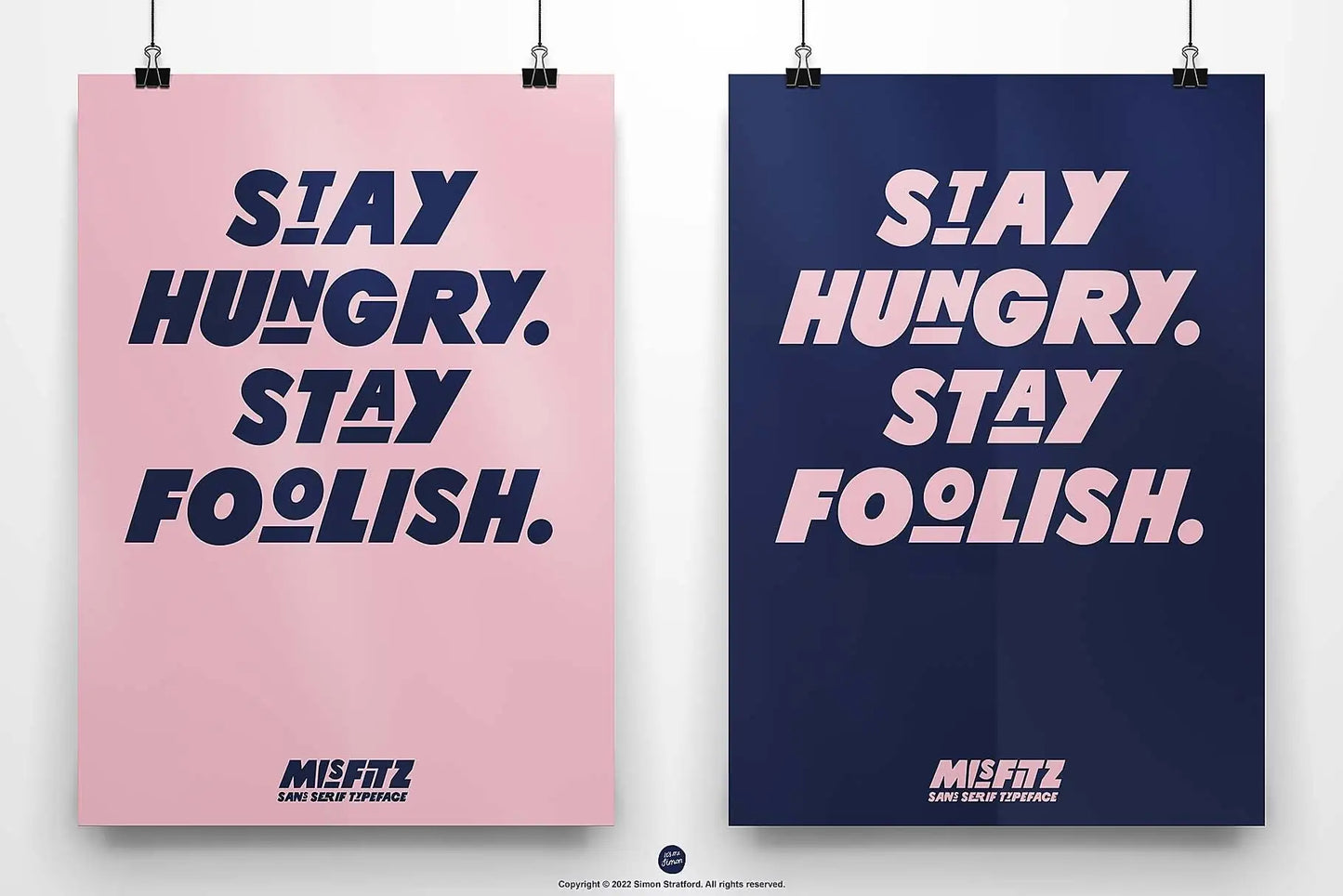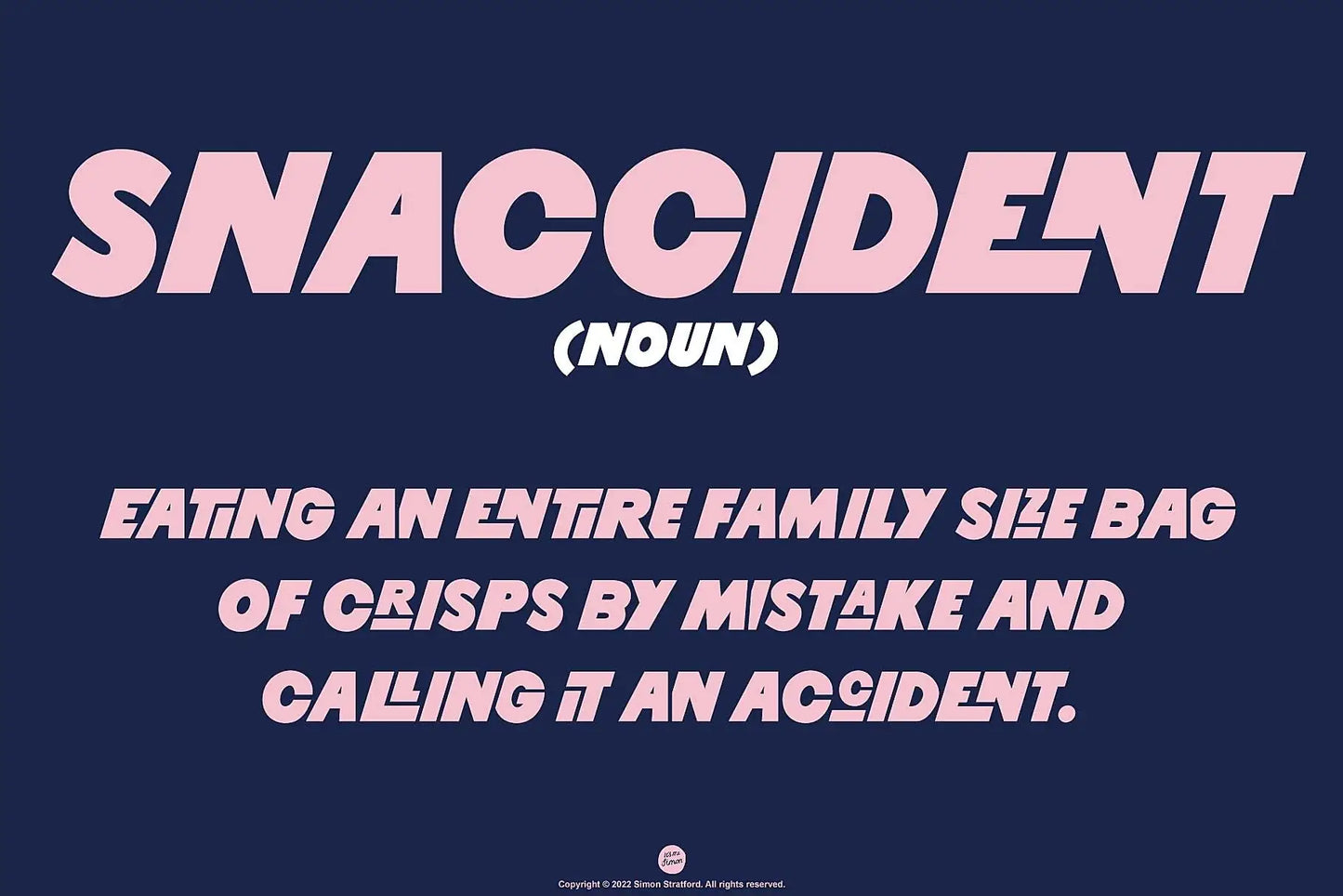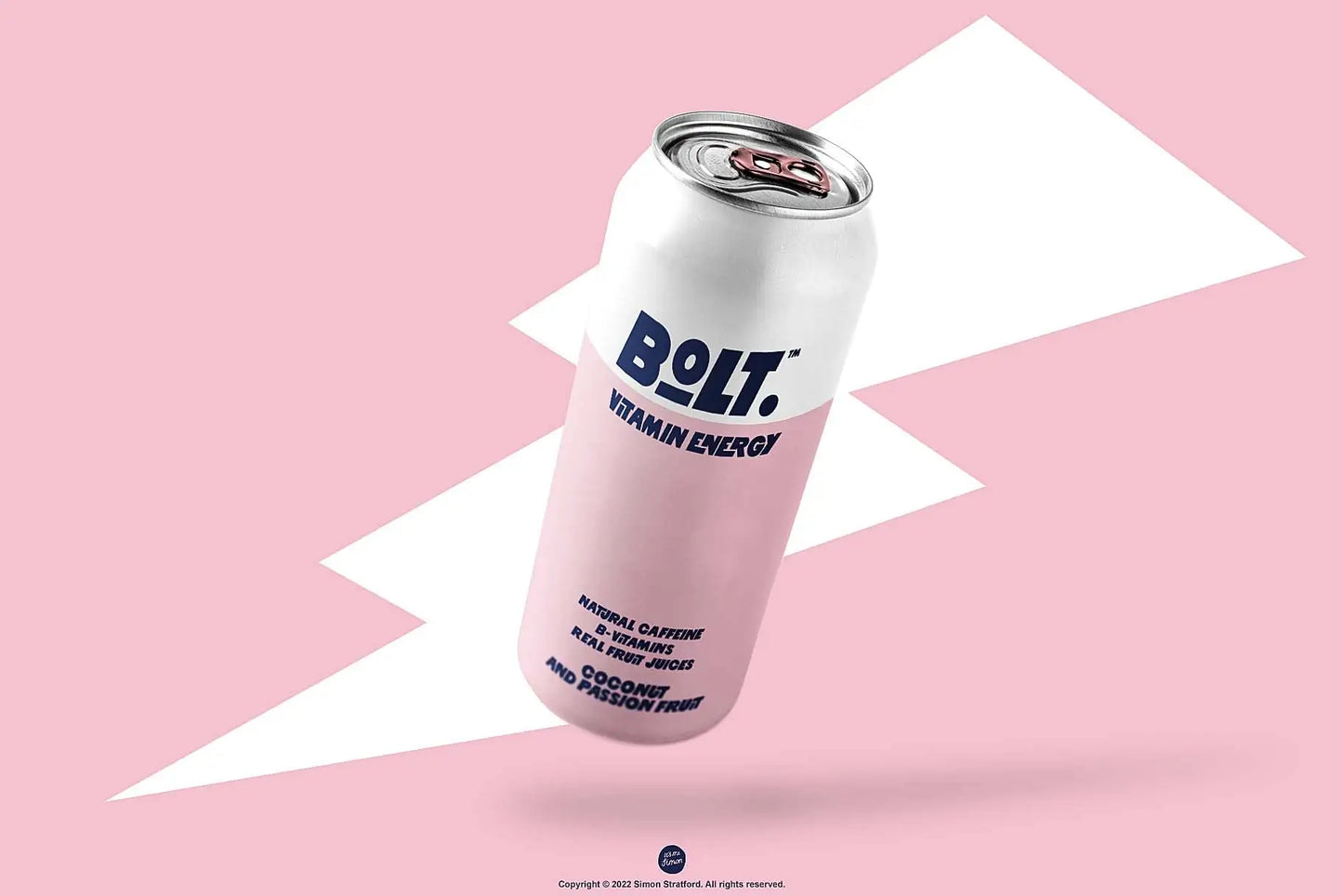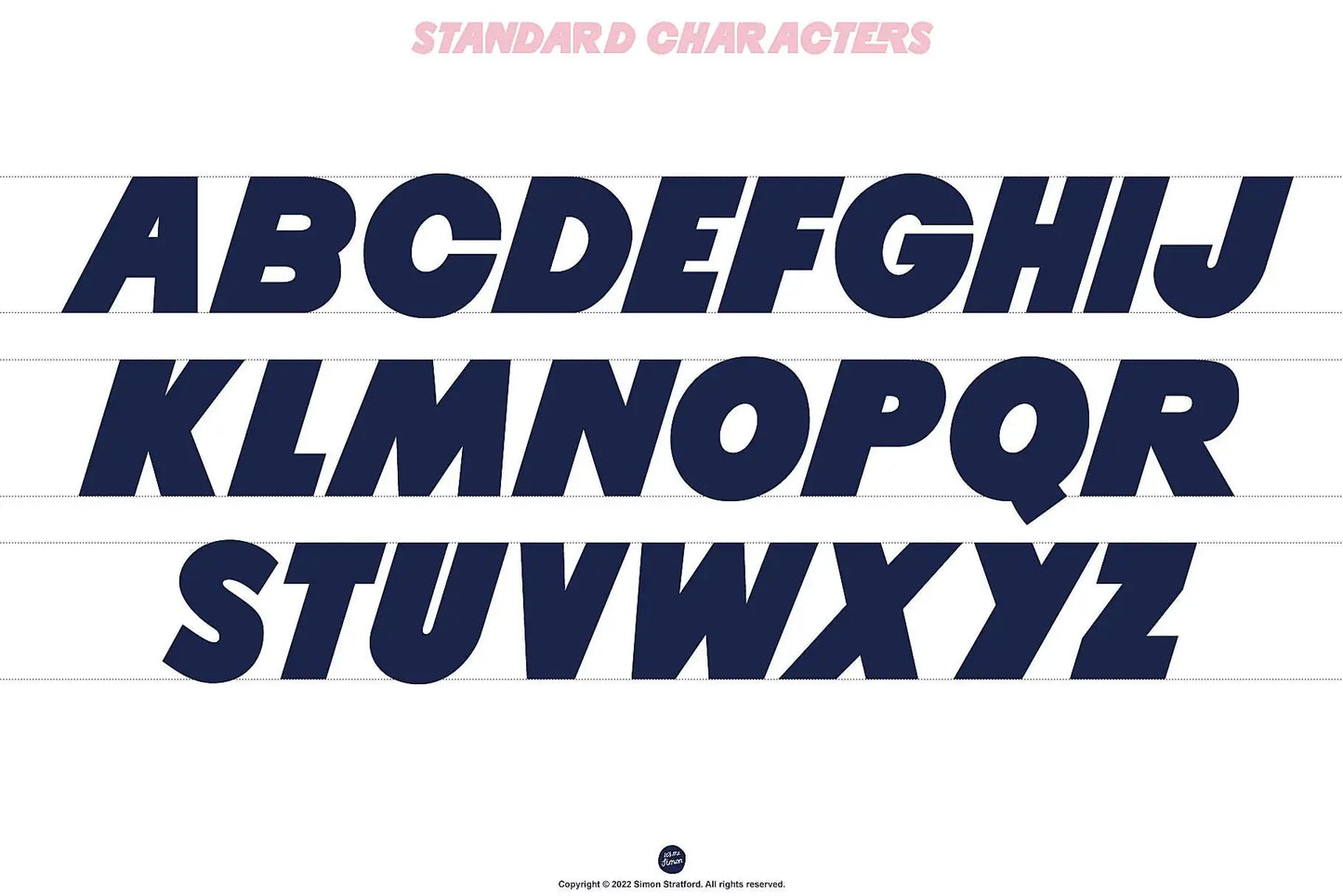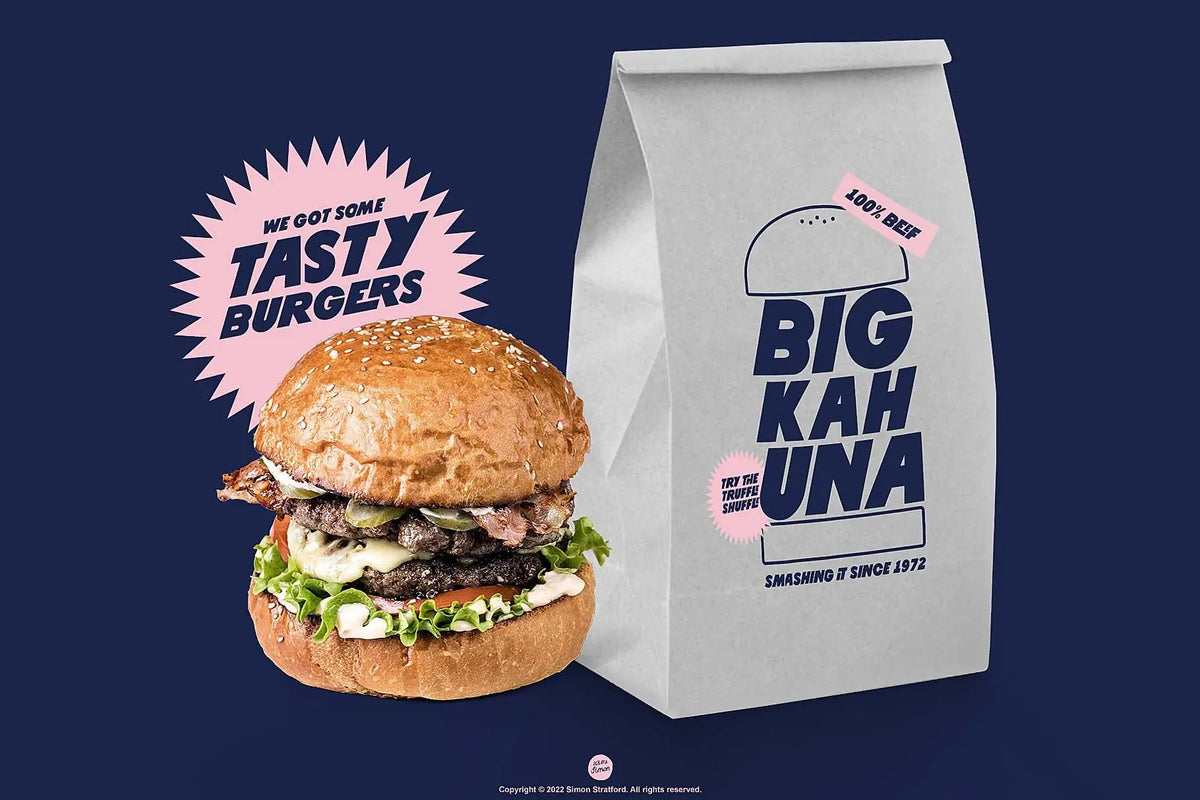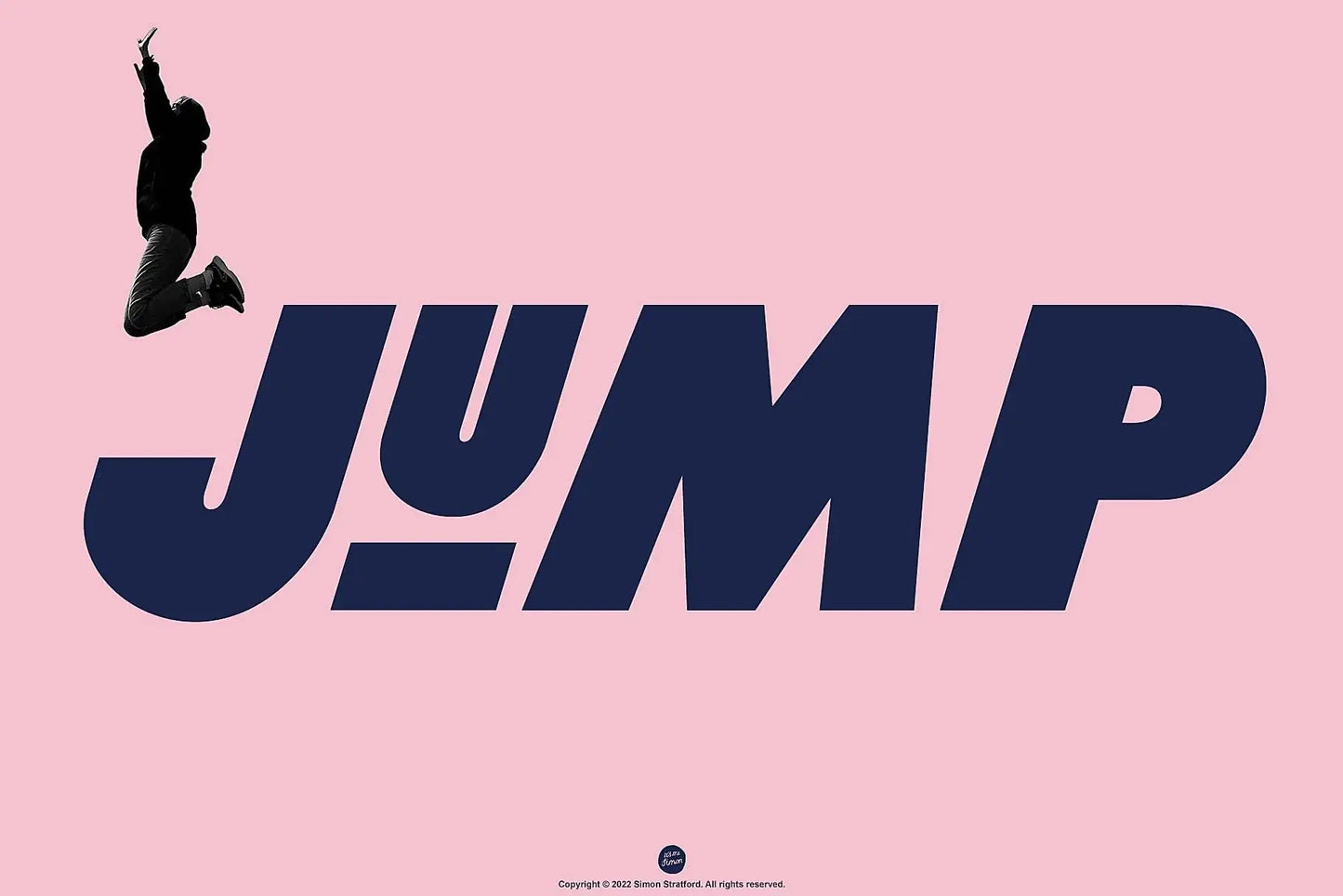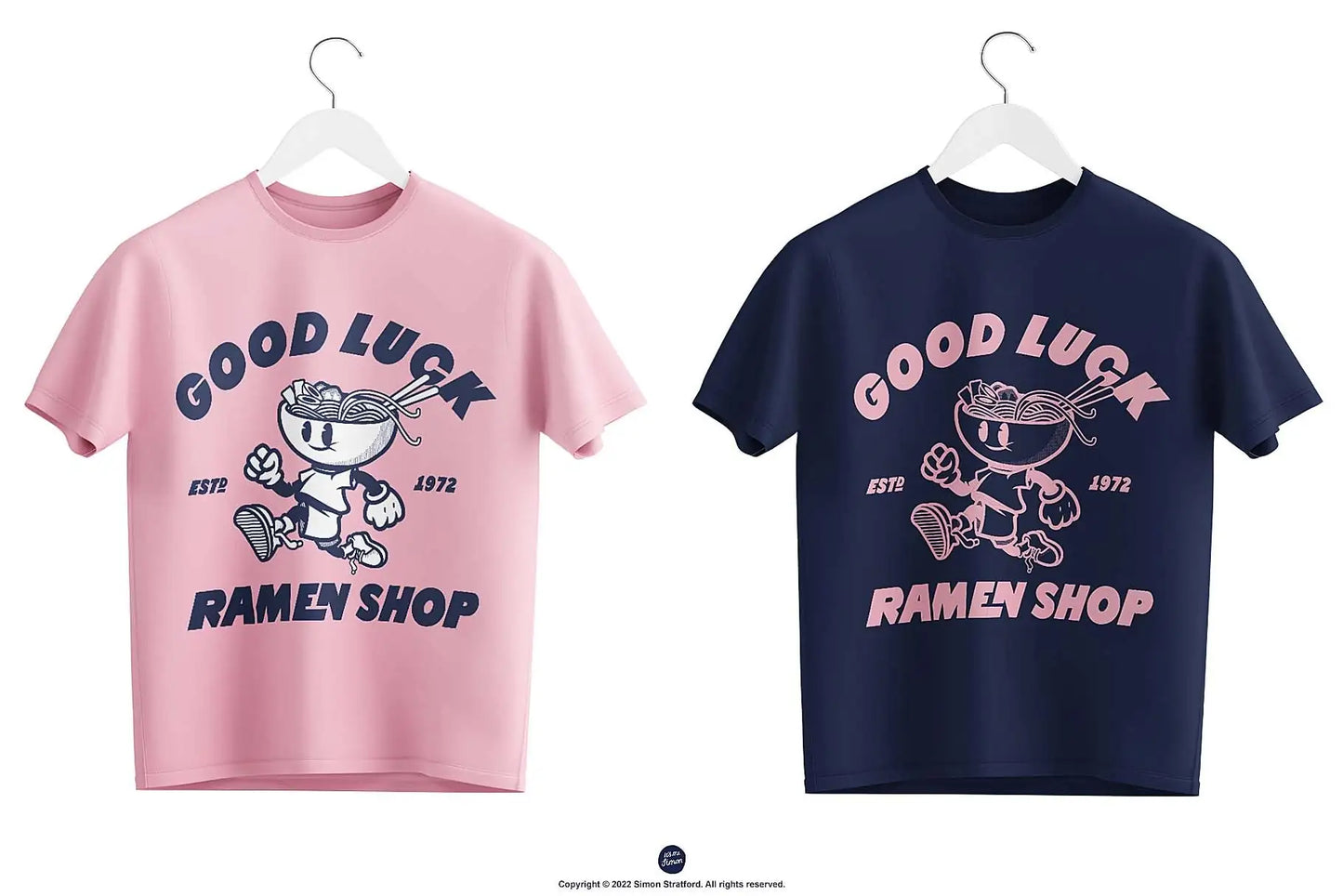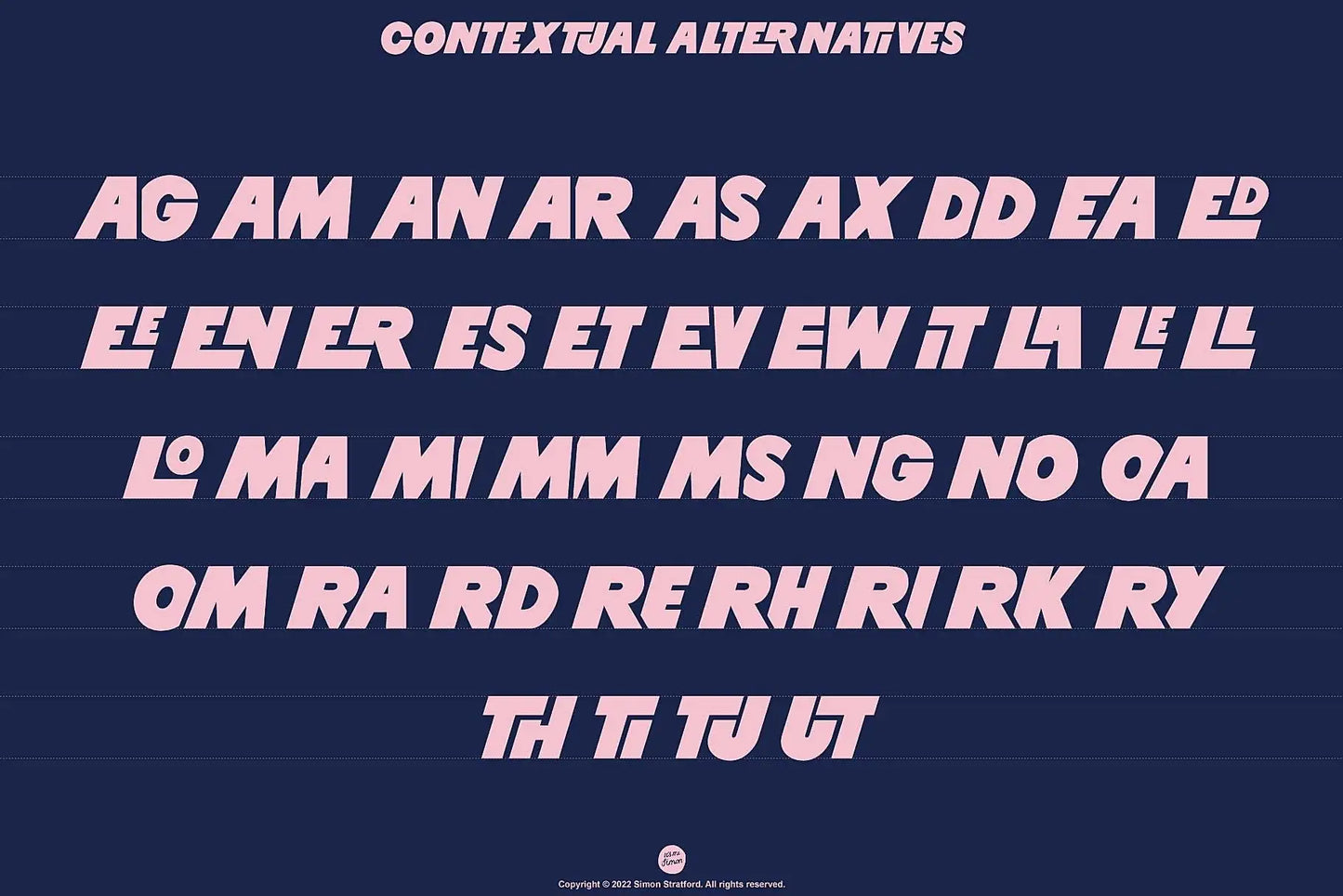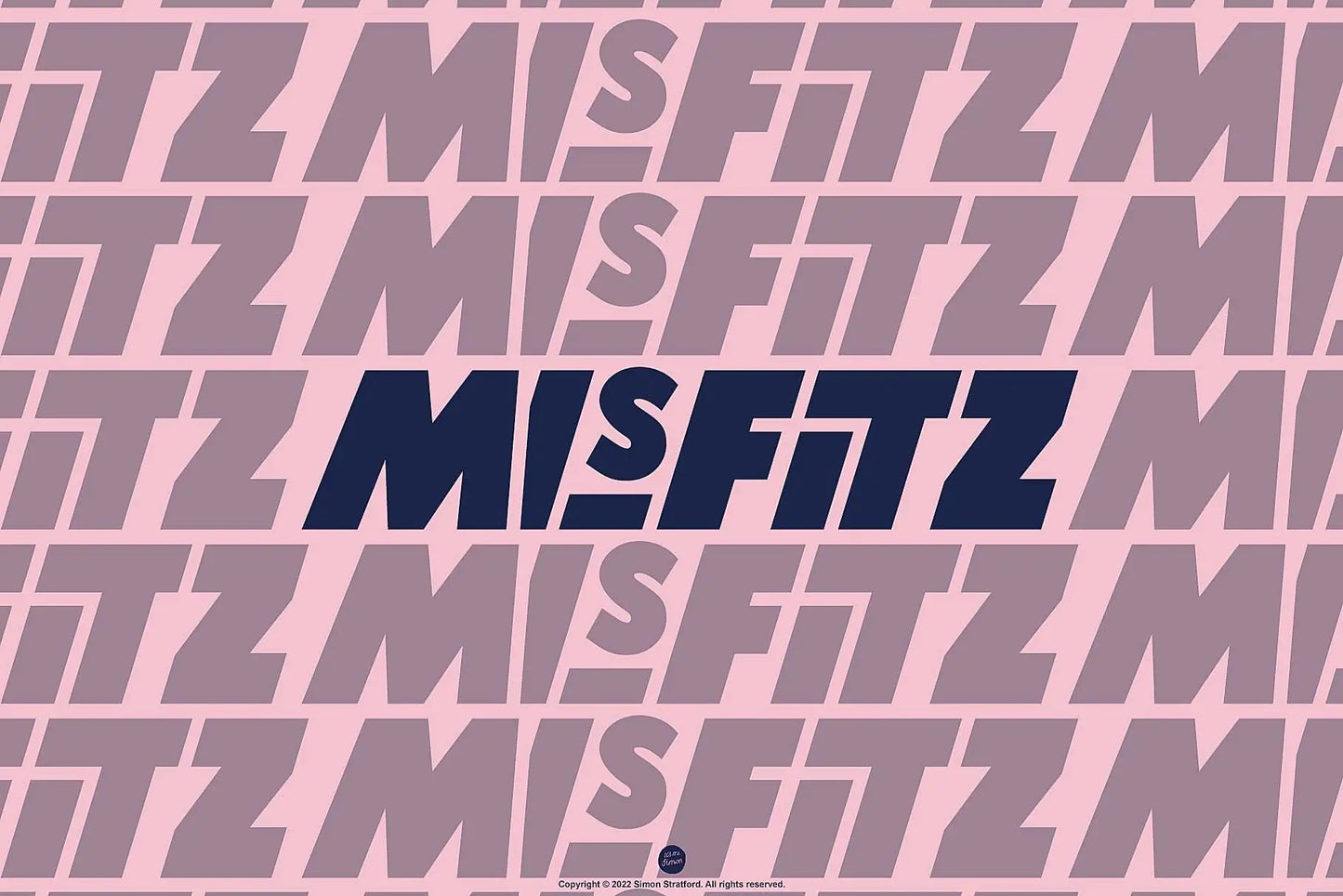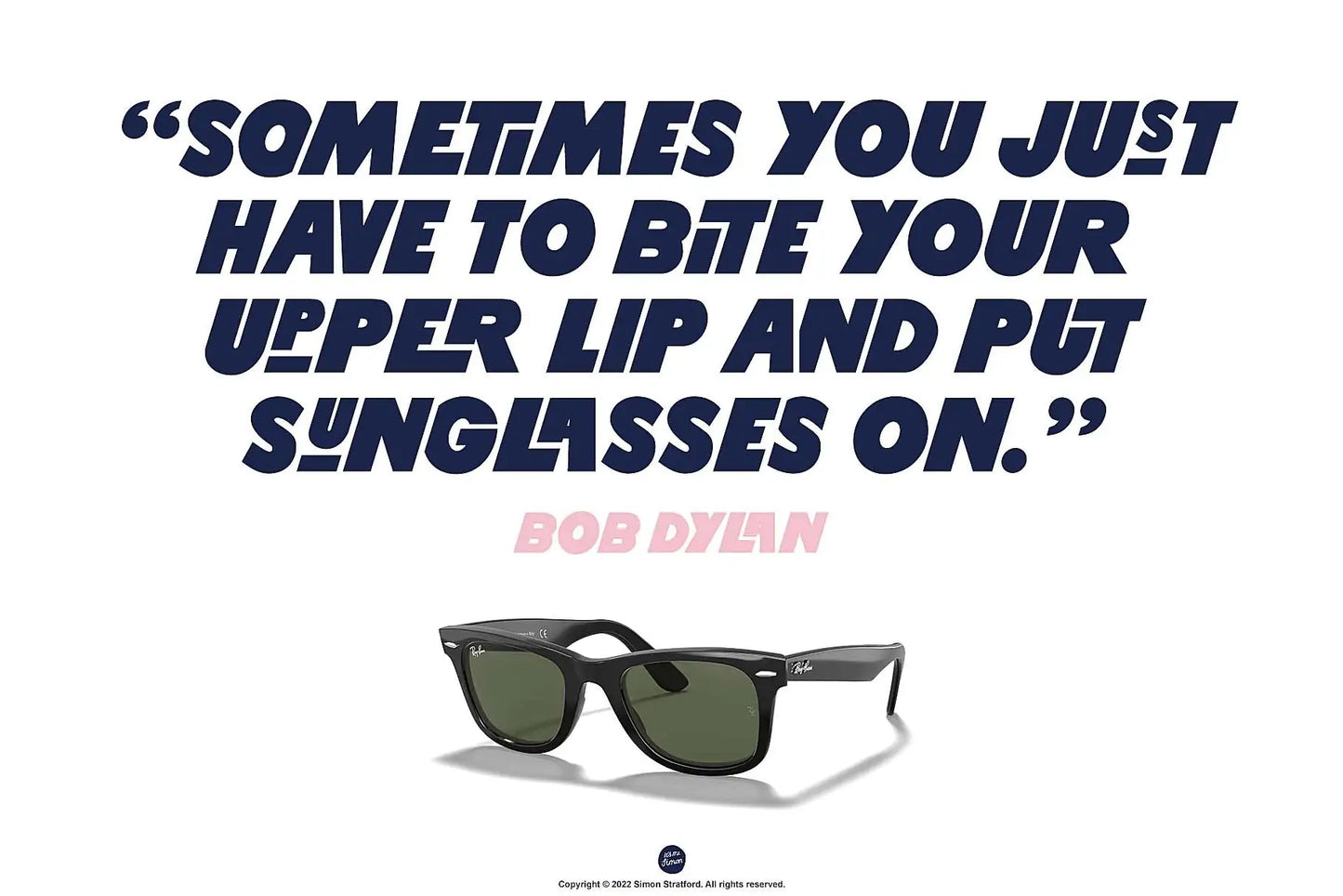
Misfitz — Bold Sans Serif Display Font
About Misfitz font
Misfitz is a bold sans-serif display font with clean geometric shapes, eccentric proportions and plenty of alternate characters. I made it for branding, packaging, posters and headlines that need more than another standard geometric sans-serif.
I like geometric sans-serifs, but plenty of them are difficult to tell apart. Misfitz started with the same clean structure, then I pushed it somewhere less predictable.
I drew it on an iPad, mixing 1930s geometric lettering with late nineteenth-century American wood type. Some characters are wide, some are narrow and others tuck into each other. It makes words feel built rather than simply typed.
Misfitz is bold, slightly odd and impossible to mistake for Helvetica—which is already a decent reason to use it.
Made for big type
Misfitz works best when you give it some room. Use it for logos, packaging, posters, advertising and editorial headlines where the shape of the words matters as much as what they say.
It remains legible at smaller sizes, but it was never intended for long passages of body text.
More than one version of the alphabet
Misfitz includes contextual alternates, interlocking letter pairs and several stylistic sets.
The contextual alternates automatically change certain characters when they appear together. Interlocking pairs pull letters into tighter compositions, while the stylistic sets include underlined characters and alternative wide or narrow forms.
These aren’t obscure extras added to make the feature list longer. They give you practical ways to change the rhythm and shape of a word.
You can switch them on through the OpenType controls in compatible design software. For more control, open the Glyphs panel and choose each character manually. The standard alphabet is only half the point.
Where to use Misfitz
Misfitz works particularly well for:
- Branding and logo design
- Packaging
- Posters and advertising
- Editorial headlines
- Invitations and stationery
- Stickers, merchandise and wall art
If you want the type to disappear quietly into the background, Misfitz is probably the wrong choice.